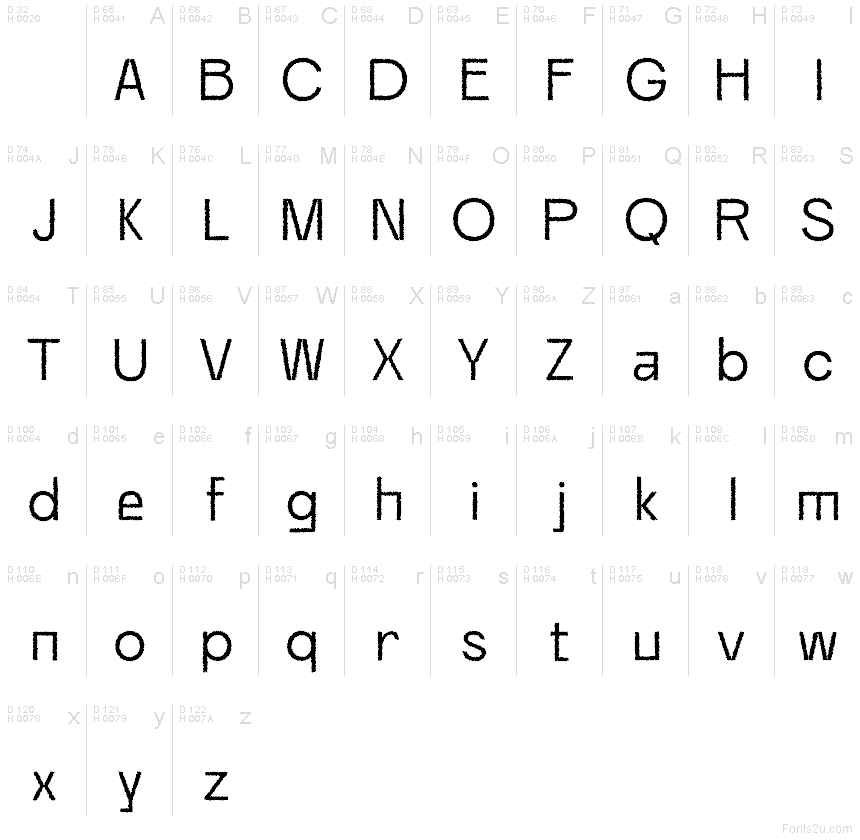
Ranberg Rough Regular Demo
Ranberg Rough font by Craft Supply Co. is an elegant display font with a textured, hand-drawn feel. This artistic font has a casual appearance making it friendly and approachable in design projects. The eroded style that mimics ink bleeding into surface textures is reminiscent of crude drawing exercises depicting shapes and strokes.